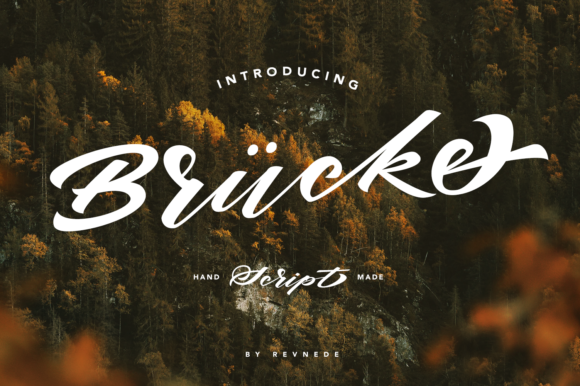
Get Ready to Unleash Your Creativity with Brucke Font
You’ve spent hours staring at your blank design canvas, trying to conjure up the perfect idea. The cursor blinks, taunting you with its stillness. And then, it hits you – a spark of inspiration that sets your imagination ablaze. You can almost see the design taking shape, but something’s missing. Enter the Brucke Font, a stylish and elegant typeface that’s about to take your creative vision to the next level.
This beautiful font is designed to bring a touch of modern sophistication to your designs. Whether you’re working on a branding project, a marketing campaign, or a personal art piece, Brucke Font is the perfect companion to help you achieve your creative goals. As a designer, you know how crucial it is to have the right tools at your disposal. With Brucke Font, you’ll have the versatility and style to create stunning designs that leave a lasting impression.
Brucke Font Key Features
- Unique Characteristics: Brucke Font features a unique blend of modern and art nouveau styles, with intricate details and ornate flourishes.
Brucke Font Review
Brucke Font is a lovely, hand-painted font that brings a touch of whimsy and personality to your designs. ✨ I’ve been using it for a few projects, and I must say it’s a great addition to any layout.
- Unique character set: Brucke Font has a distinct, hand-painted feel that’s perfect for creative and artistic projects.
- High-resolution glyphs: The font looks great in high-resolution, making it ideal for print or digital designs.
- Good legibility: Despite its quirky feel, Brucke Font is still easy to read, even at smaller font sizes.
- Font size limitations: Brucke Font can look a bit distorted at very large or very small font sizes, so be mindful of your design.
Overall, I’m quite fond of Brucke Font. It’s a fun and creative font that can add a lot of personality to your designs. With a little care and attention, it can be a great addition to any project.
Getting the Most Out of Brucke Font
For the best results, use Brucke font in conjunction with high-contrast backgrounds and bold graphics. Experiment with different font sizes and styles to create visual interest.
Brucke font is well-suited for use in modern, minimalist designs. It’s particularly effective in branding and marketing materials, such as logos, business cards, and social media graphics.